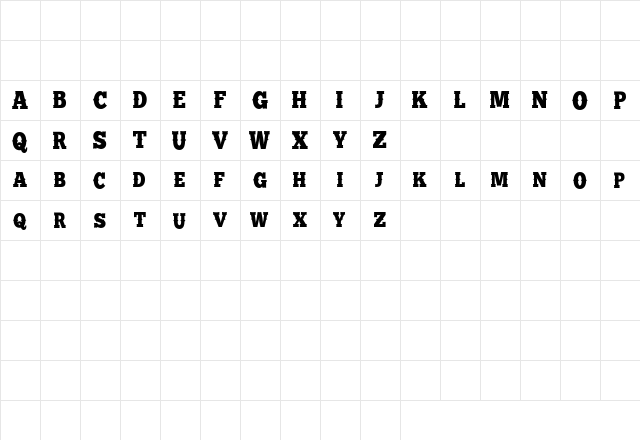
BATTLE ROAD DEMO Regular
| Designer | Fachranheit 2019 |
Design Context for BATTLE ROAD DEMO Typeface
BATTLE ROAD DEMO takes a measured approach to typography — its balanced proportions and neutral character make it a reliable workhorse for both digital and print work.